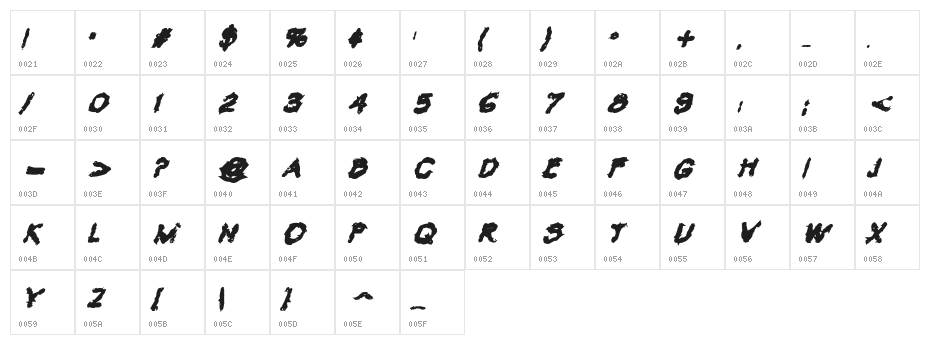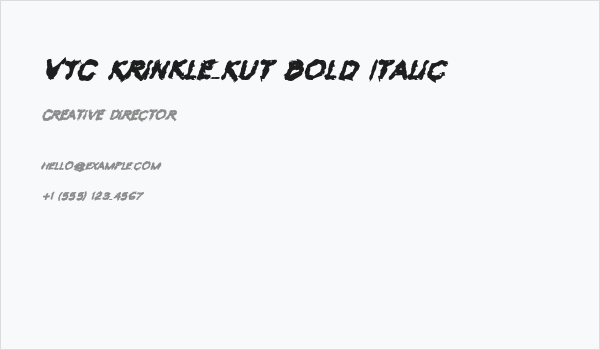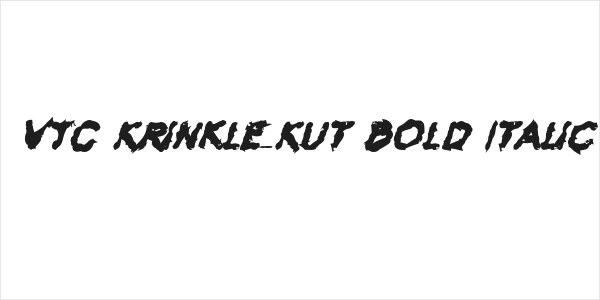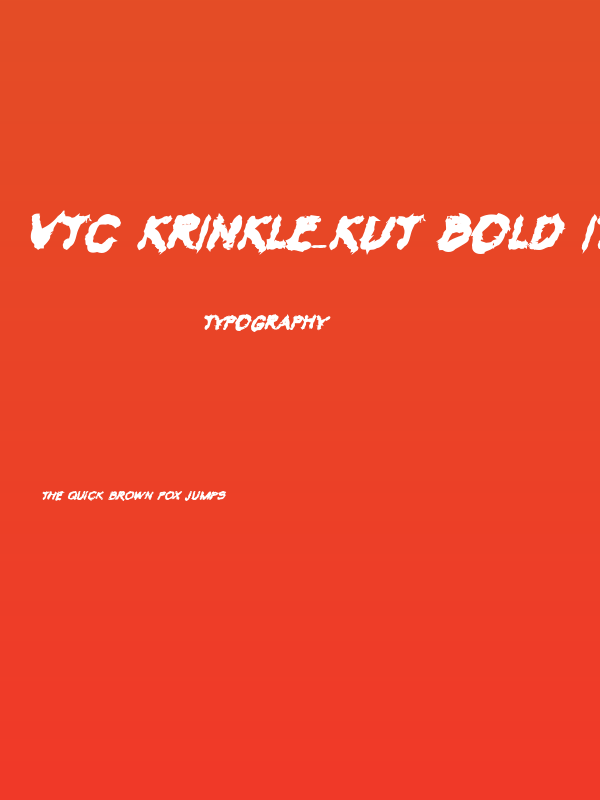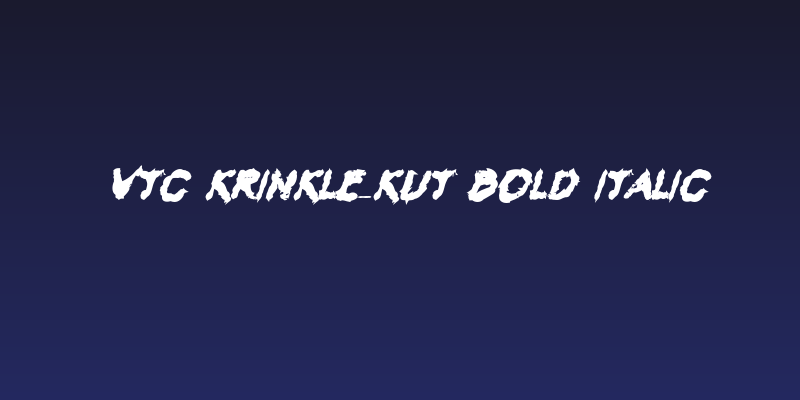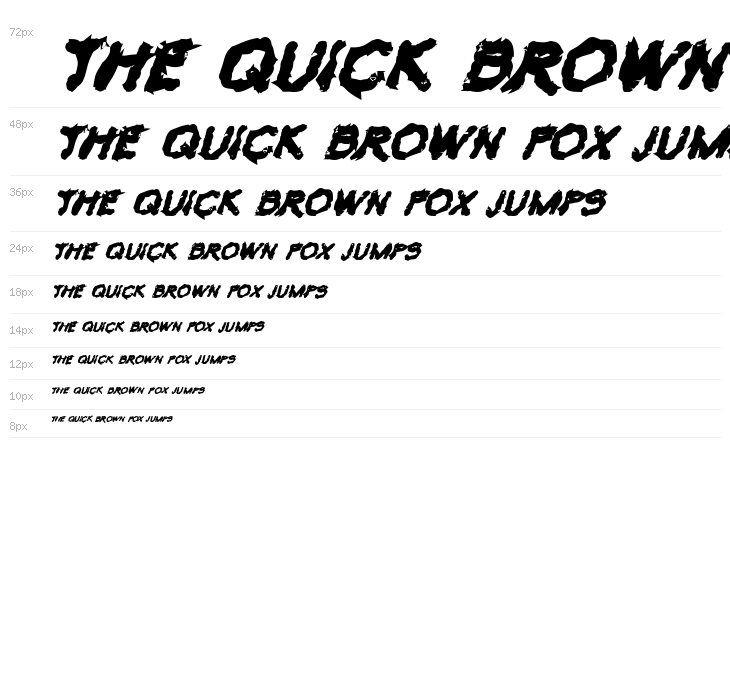
VTC Krinkle-Kut Bold Italic Font
VTC Krinkle-Kut Bold Italic Description
This font features a bold and dynamic style with a distinctly rough and textured appearance. The characters are heavily stylized, giving them a hand-drawn, almost graffiti-like quality. Each letter is unique, with irregular edges and a sense of movement that suggests energy and spontaneity. The boldness of the font makes it stand out, while the italic slant adds a sense of speed and urgency. This font is perfect for projects that require a strong visual impact and a touch of edginess.
| Overall Style | Modern, Edgy |
| Proposed Projects | Ideal for posters, album covers, streetwear branding, and any project needing a bold, edgy look. |